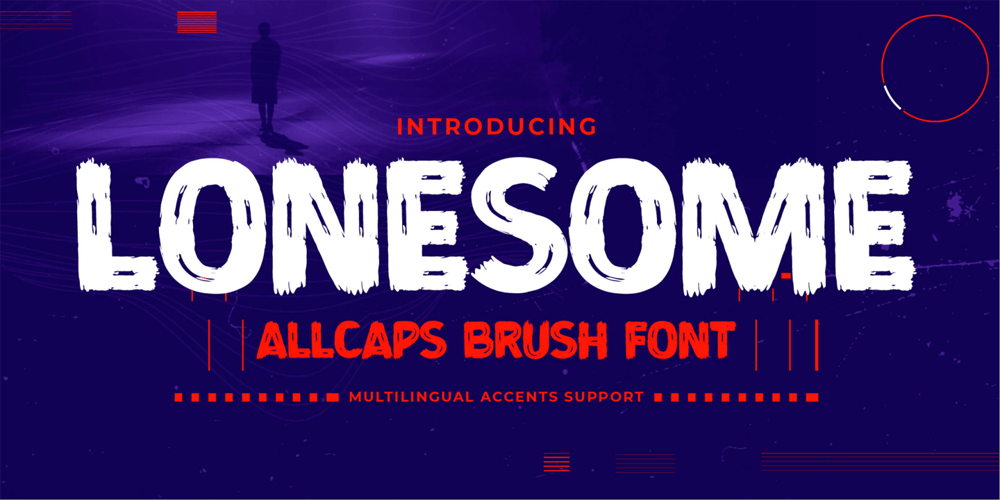
Lonesome
Lonesome font
Lonesome Font Family was designed by Abdul Malik Wisnu, Anang Fibriyanto and published by Gassstype. Lonesome contains 1 styles and family package options. Here comes a New font, Lonesome is a All Caps Brush Font that is written casually and quickly. Letters are made with brushes on Procreate. Then crafted carefully drawn into vector format. That is why Lonesome has Stylish and strong characteristic more natural look to your text with a more modern look to your text.